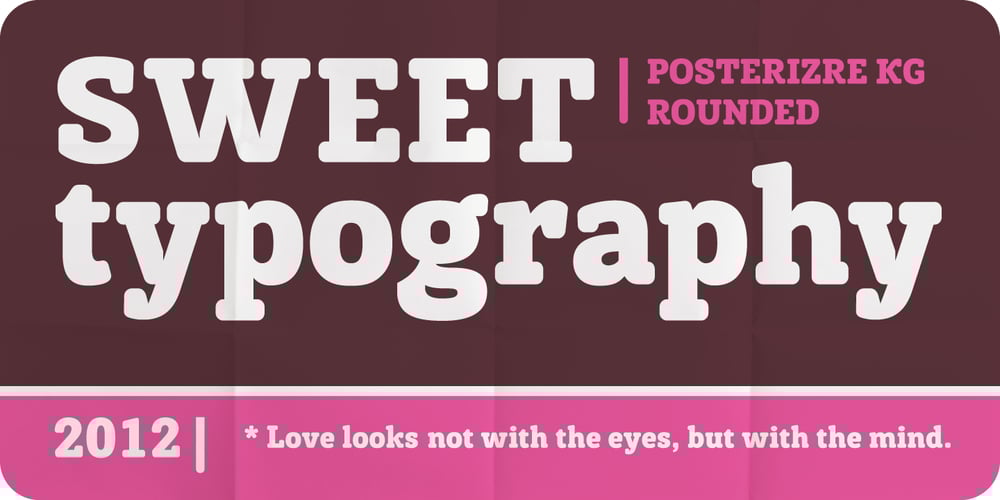
Posterizer KG Rounded Font Family was designed by Lazar Dimitrijević and published by Posterizer KG. Posterizer KG Rounded contains 1 styles and family package options. Posterizer Kg Rounded, is basically rounded version of Egyptian, Slab Serif font Posterizer Kg. By adding rounded corners on serifs, the strict form disappears, in that way, the font gets softer form. Posterizer Kg Rounded is useful for sweet themes like cookies, puppies, love, joy, or some other similar things.